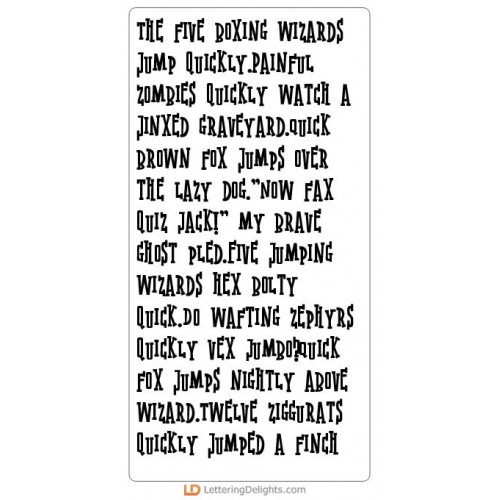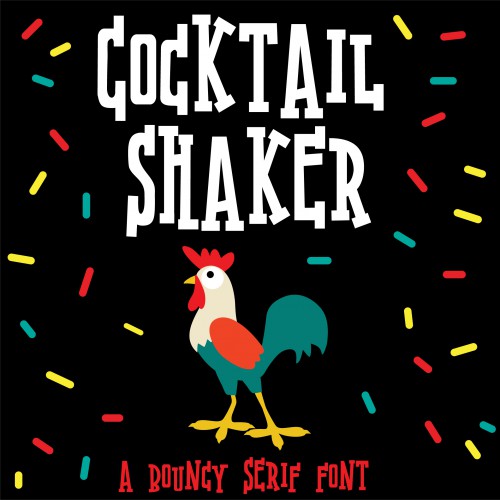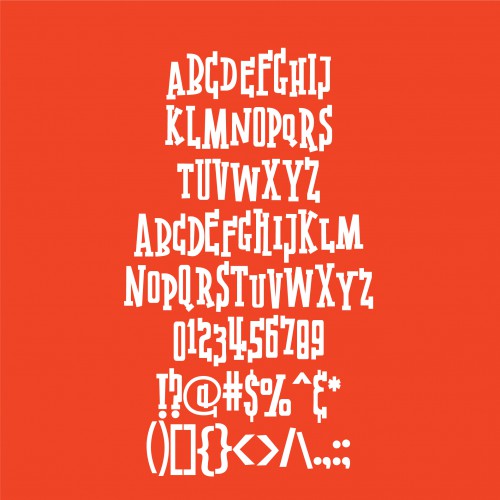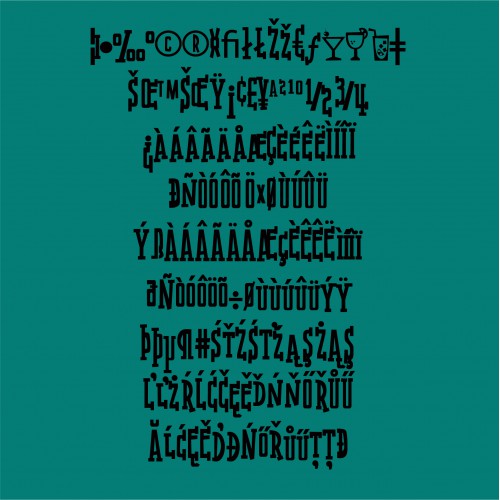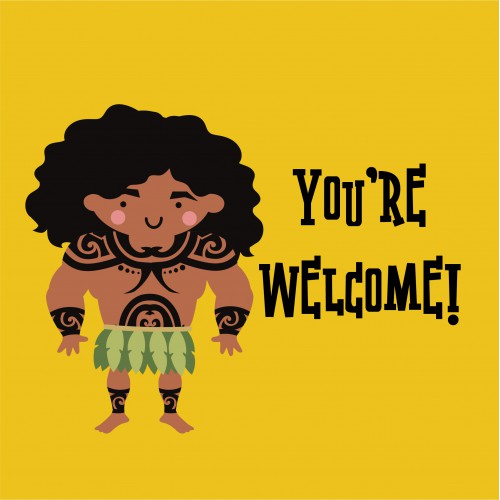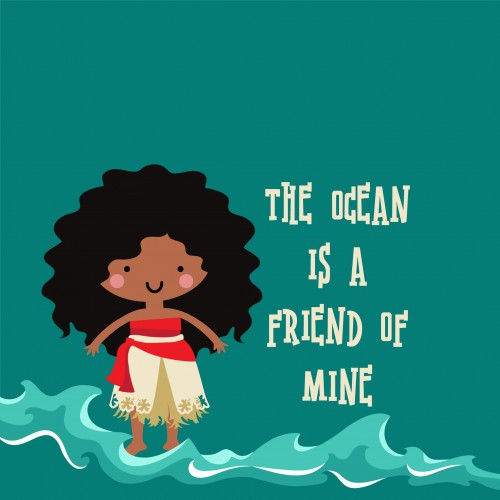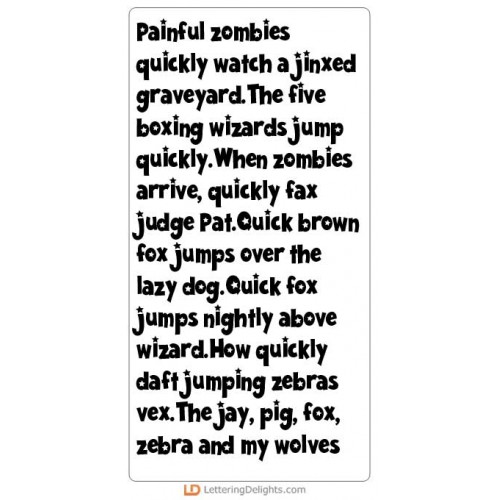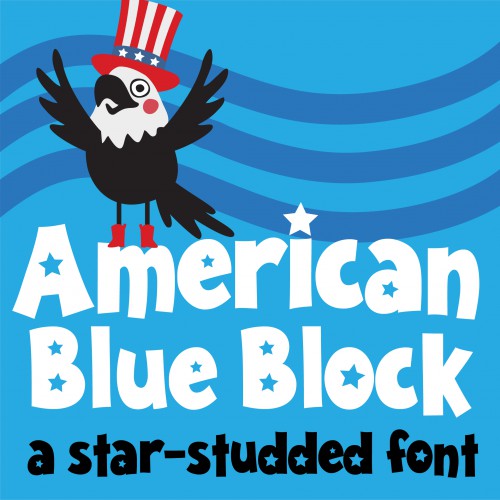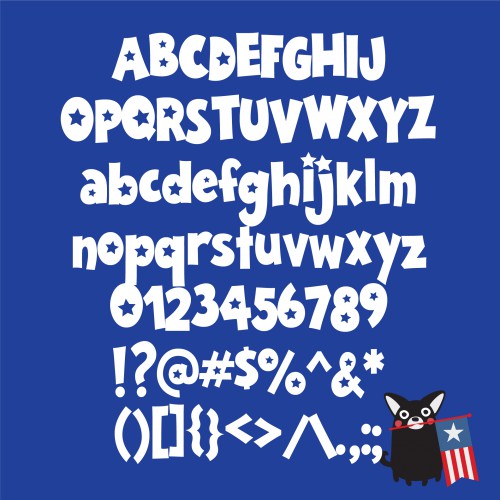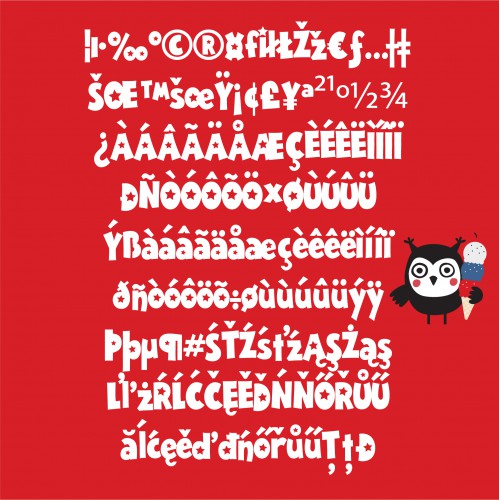
Contempo Independence Day - Big Bundle
This fun contemporary styled collection is full of Patriotic and barbeque themed imagery. Perfect for the 4th of July, parties, scrap book pages, planner stickers and more!
ZP Cocktail Shaker - FN
This whimsical serif font has a bouncy baseline and two uppercases that differ from one another...
ZP American Blue Block - FN
This cute and blocky font features stars for holes...
ZP Boogiescript Bold - FN
This bold quasi-script has a whimscial and youthful quality to it...
DB Contempo Independence Day - DB
This fun doodlebat font has 26 contemporary patriotic themed imagery perfect for parties, scrap book..
DB Contempo BBQ - DB
This fun doodlebat font has 26 contemporary bbq themed imagery perfect for parties, scrap book pages..
Contempo Independence Day - GS
Contemporary patriotic themed imagery perfect for parties, scrap book pages, cards, planner stickers..
Contempo Independence Day - CS
Contemporary patriotic themed cuttable imagery perfect for parties, scrap book pages, cards, planner..
Contempo Independence Day - BBQ - GS
Contemporary barbeque themed imagery that coordinate with our Independence day graphics and are perf..
Contempo Independence Day - BBQ - CS
Contemporary and cuttable barbeque themed imagery that coordinate with our Independence day graphics..
Contempo Independence Day - Phrases - GS
Fun patriotic phrases that coordinate with our Independence day graphics and are perfect for parties..
Contempo Independence Day - Phrases - CS
Fun cuttable patriotic phrases that coordinate with our Independence day graphics and are perfect fo..
Contempo Independence Day - CP
The perfect patriotic cut projects to use as party decor, hand outs, gift giving and more! Includes,..
Contempo Independence Day - AL
This simple red, white and blue alphabet coordinates with our entire Contempo Independence Day Colle..
Contempo Independence Day - PP
This fun paper pack coordinates with our entire Contempo Independence Day Collection...
Contempo Independence Day - Party - PR
Contemporary barbeque and patriotic themed printable party that coordinates with our Independence da..